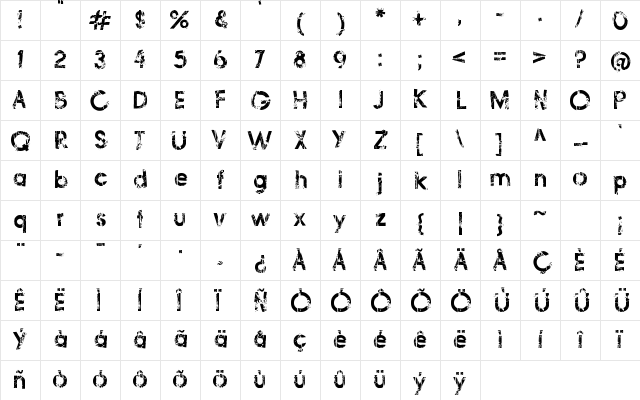
Frail&Bedazzled Regular
Designer: Lauren Thompson
Design Context for Frail&Bedazzled
Frail&Bedazzled is a composed and adaptable typeface that performs quietly and consistently across a wide range of design contexts.